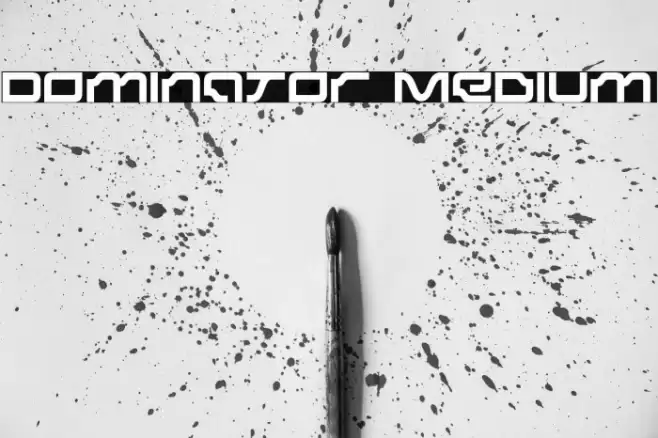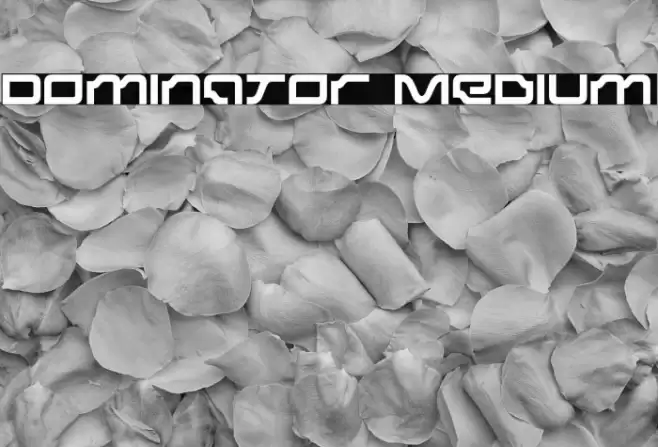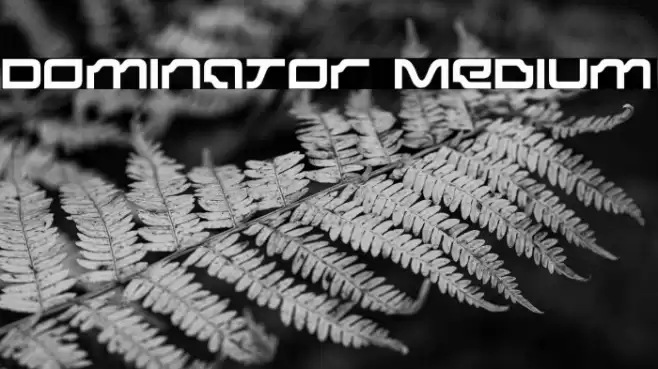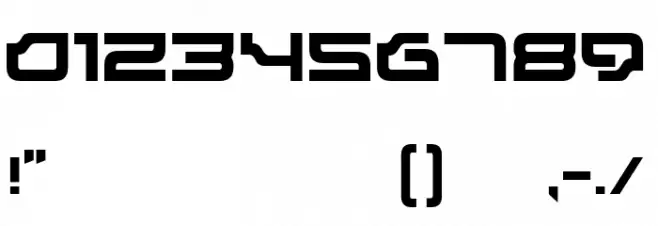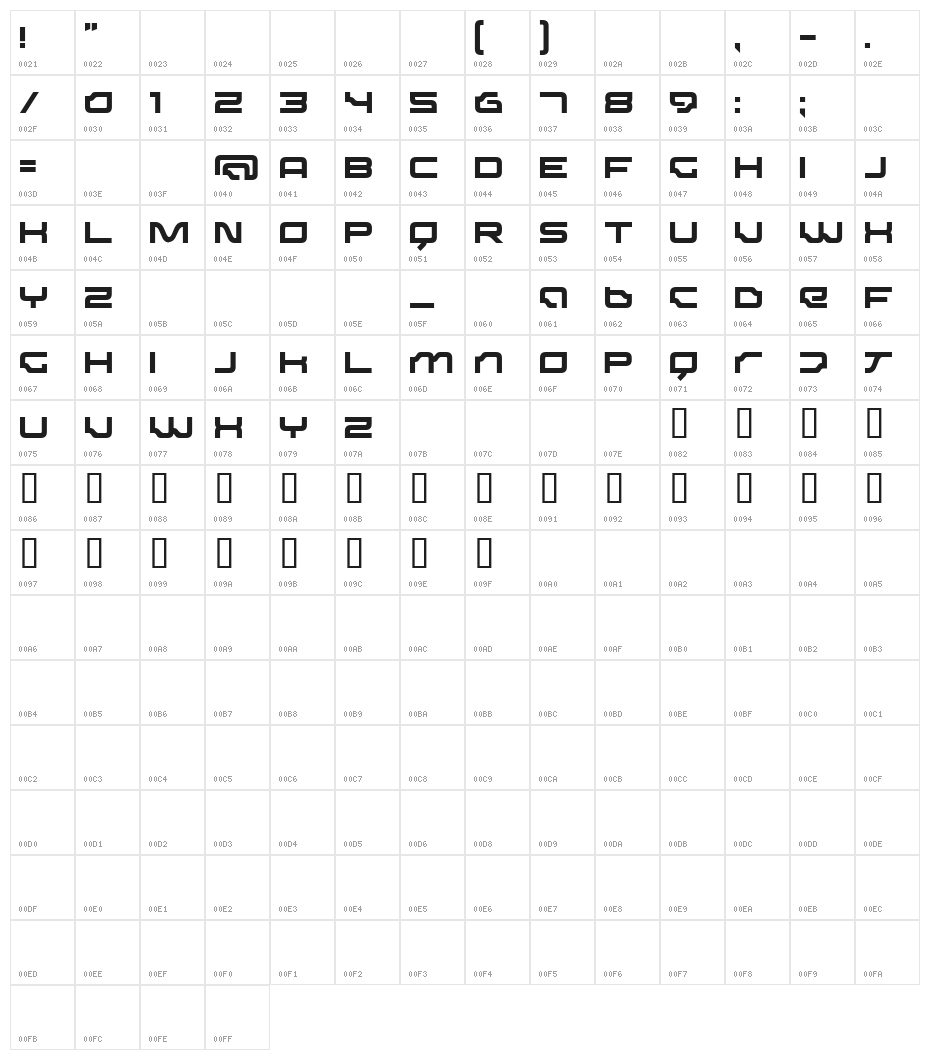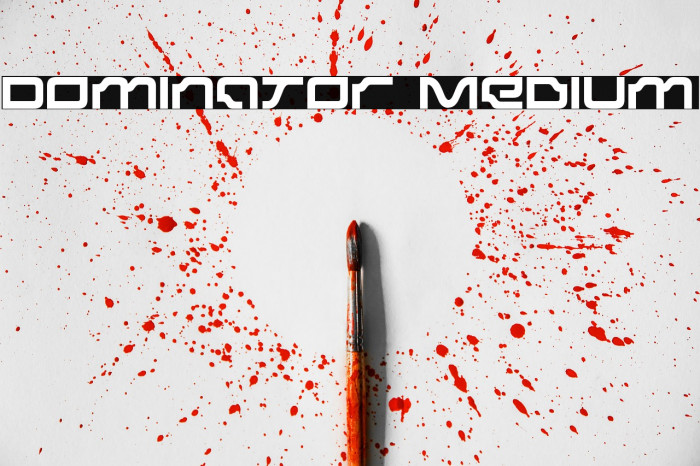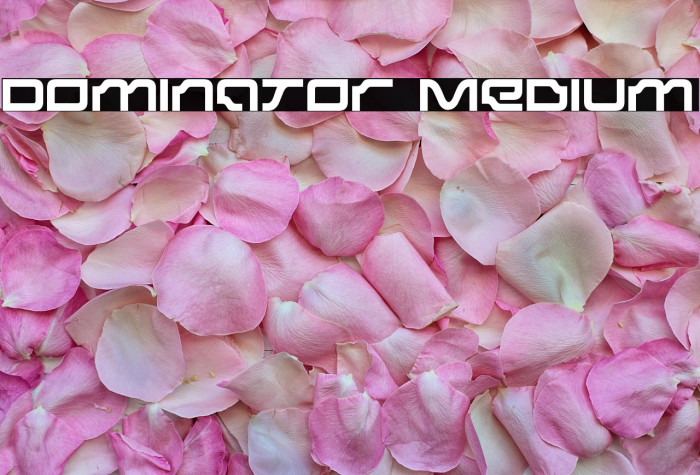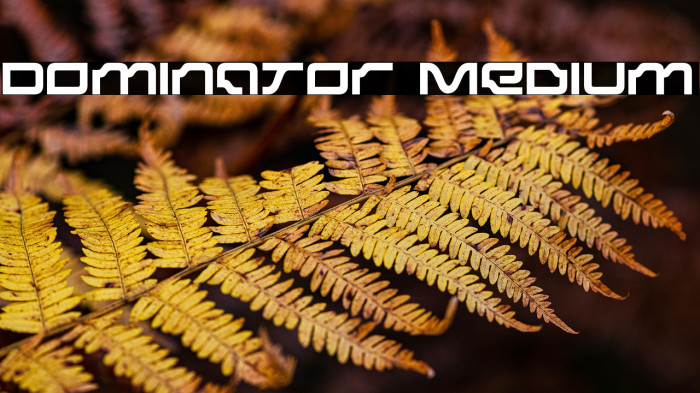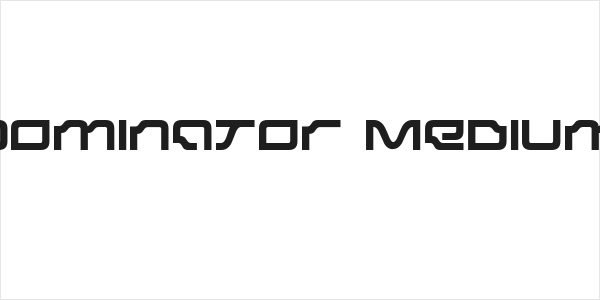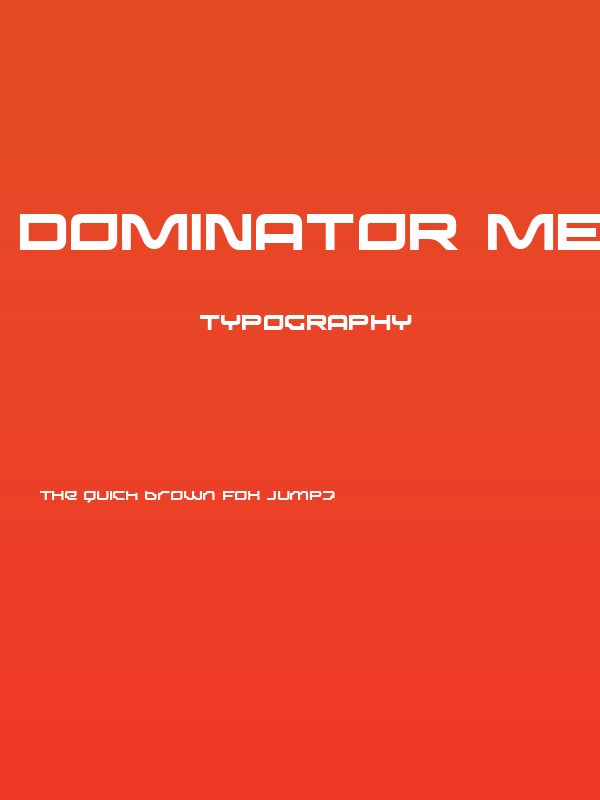
Dominator Medium Font
Dominator Medium Description
This font features a futuristic and geometric design with a bold and assertive presence. The characters are constructed with sharp angles and straight lines, giving it a mechanical and digital feel. The uppercase and lowercase letters maintain a consistent style, with unique cutouts and angular details that add a distinctive edge. The numerals are equally bold, matching the overall aesthetic with their blocky and robust forms. Special characters are designed to complement the font's modern and tech-inspired look, making it ideal for projects that require a strong, contemporary typeface.
A futuristic, geometric font with bold, angular characters from Uncategorized fonts.
- Proposed Projects: Ideal for technology branding, video game titles, sci-fi movie posters, and digital interfaces.